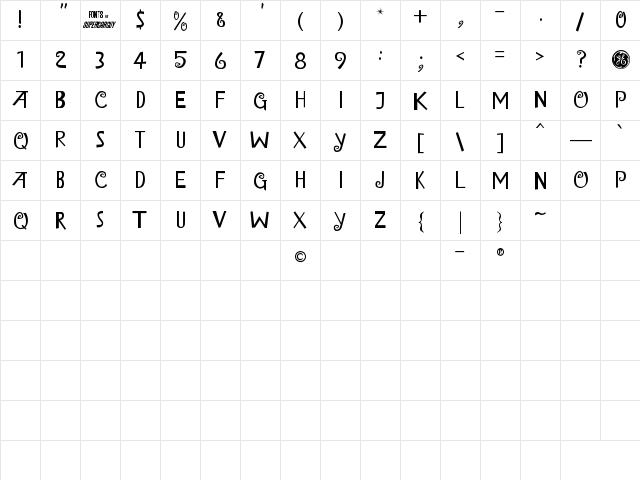
Island of Misfit Toys Alt. Regular
Design Context for Island of Misfit Toys Alt. Typeface
Island of Misfit Toys Alt. is a composed and adaptable typeface that performs quietly and consistently across a wide range of design contexts.